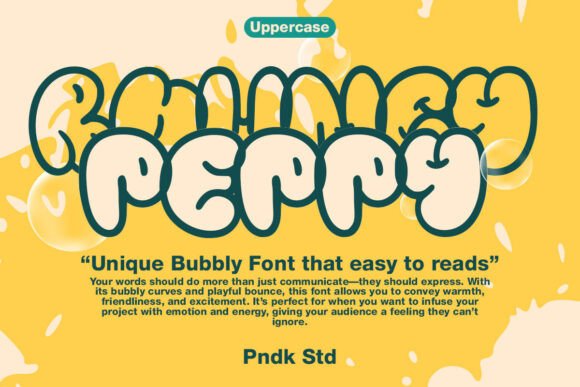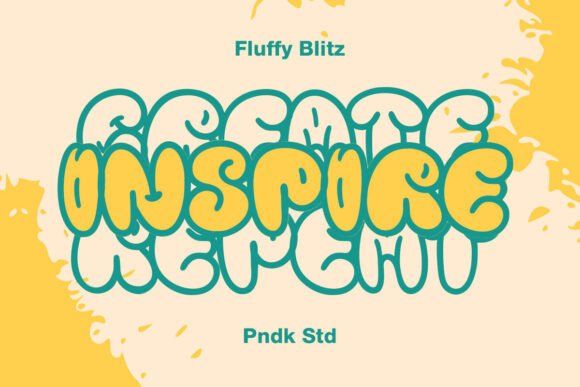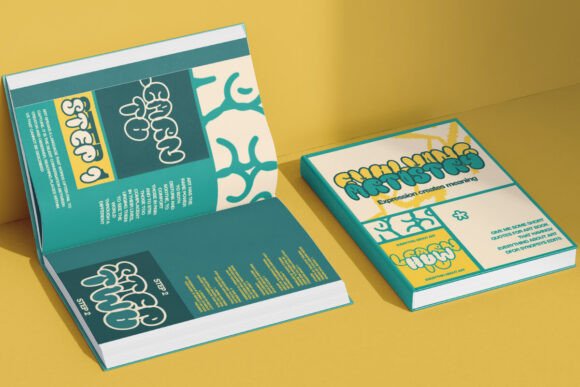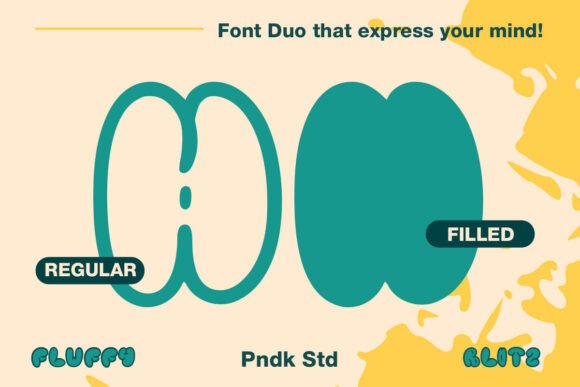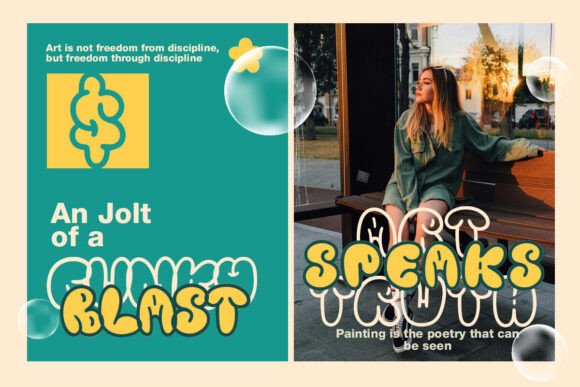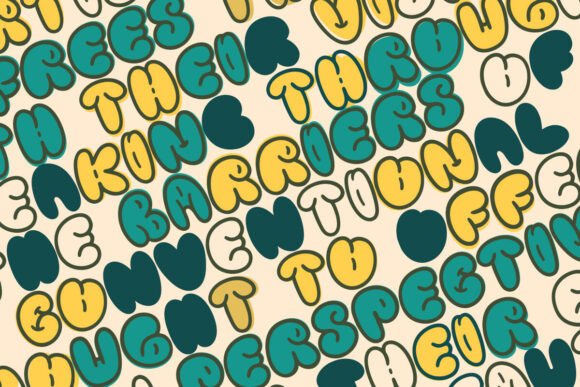
Introducing Fluffy Blitz – Graffiti Bubble Font
Say hello to Fluffy Blitz, a bold and playful graffiti bubble font that brings vibrant energy to your designs! With its 2 styles: Filled and Outlines, Fluffy Blitz combines a fun, rounded, and balloon-like appearance with a touch of edgy street art vibes. This font is perfect for projects that want to make a statement, such as graffiti-inspired designs, posters, stickers, t-shirts, branding, or even creative social media posts.
A Design Moment of Frustration and Delight
I recall working on a project for a client who wanted a bold, eye-catching font for their streetwear brand. I spent hours scouring the internet for the perfect font, but nothing seemed quite right. That was until I stumbled upon Fluffy Blitz. Its unique blend of playfulness and edginess immediately caught my attention, and I knew I had found the perfect fit. In this article, I’ll share my experience with Fluffy Blitz, including what I love about it, some quirks to be aware of, and practical tips on how to use it in your designs.
Honest Review
- ✨ Unique Style: Fluffy Blitz’s graffiti bubble style is unlike any other font I’ve seen. It’s perfect for adding a pop of personality to your designs.
- ✅ Versatility: With two styles to choose from – Filled and Outlines – you can use Fluffy Blitz for a wide range of projects, from bold and colorful designs to more subtle and edgy ones.
- 💡 Easy to Read: Despite its playful appearance, Fluffy Blitz is surprisingly easy to read, making it perfect for headlines, titles, and short paragraphs.
While Fluffy Blitz is an amazing font, there are a few things to keep in mind: 🤔
- ⚠️ Limited Use Cases: Due to its bold and playful nature, Fluffy Blitz may not be the best fit for very formal or professional projects.
- ⚠️ Glyph Limitations: While Fluffy Blitz comes with a range of glyphs and stylistic alternates, it may not have every special character or symbol you need.
Fluffy Blitz was inspired by the vibrant street art scene of the 1980s. Its designer, a self-proclaimed graffiti enthusiast, wanted to create a font that captured the playful, rebellious spirit of urban art. With Fluffy Blitz, you’ll get to experience the energy and excitement of street art in your designs.
A: Fluffy Blitz is perfect for bold, eye-catching designs, such as graffiti-inspired art, posters, stickers, t-shirts, branding, or social media posts.
Q: Does Fluffy Blitz come with any special features?
A: Yes, Fluffy Blitz comes with a range of glyphs and stylistic alternates, which you can access using the Glyphs panel in Adobe Creative Cloud or other compatible design software.